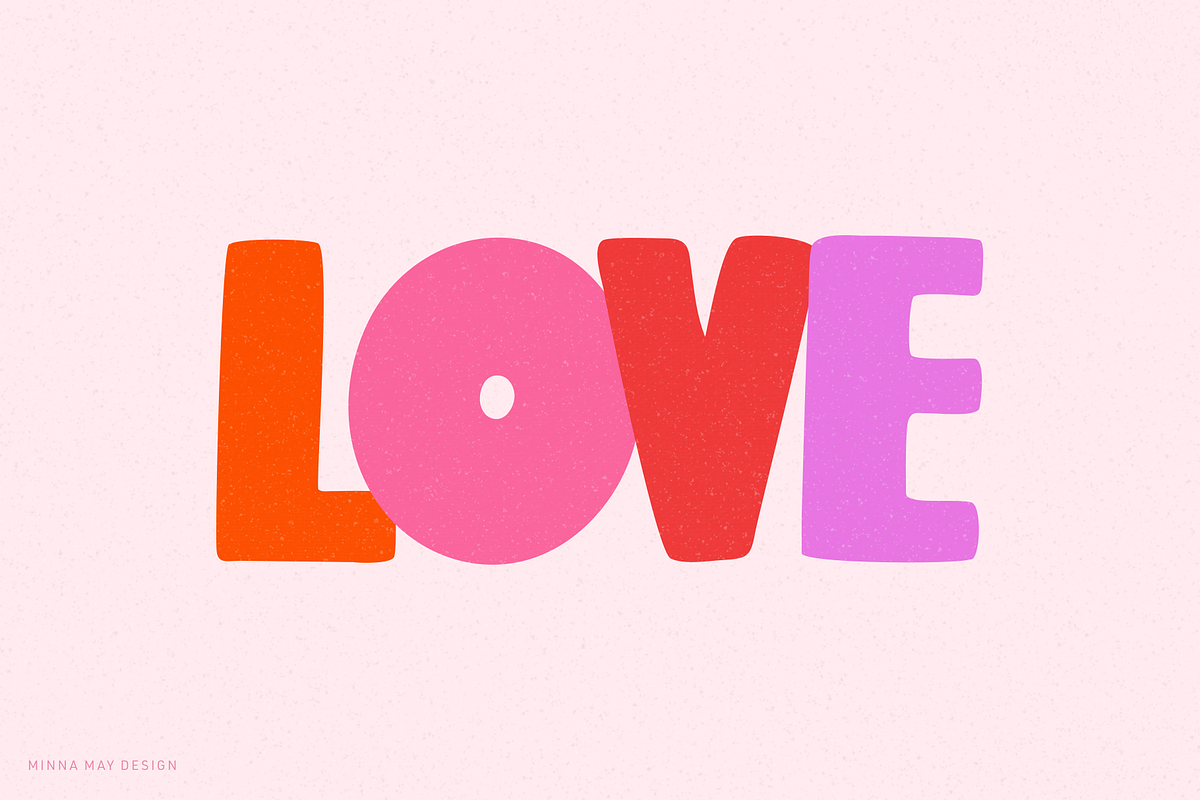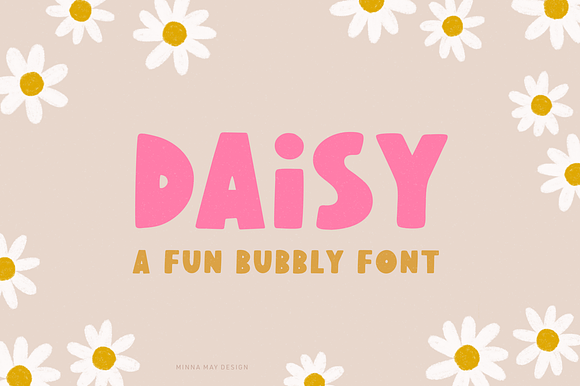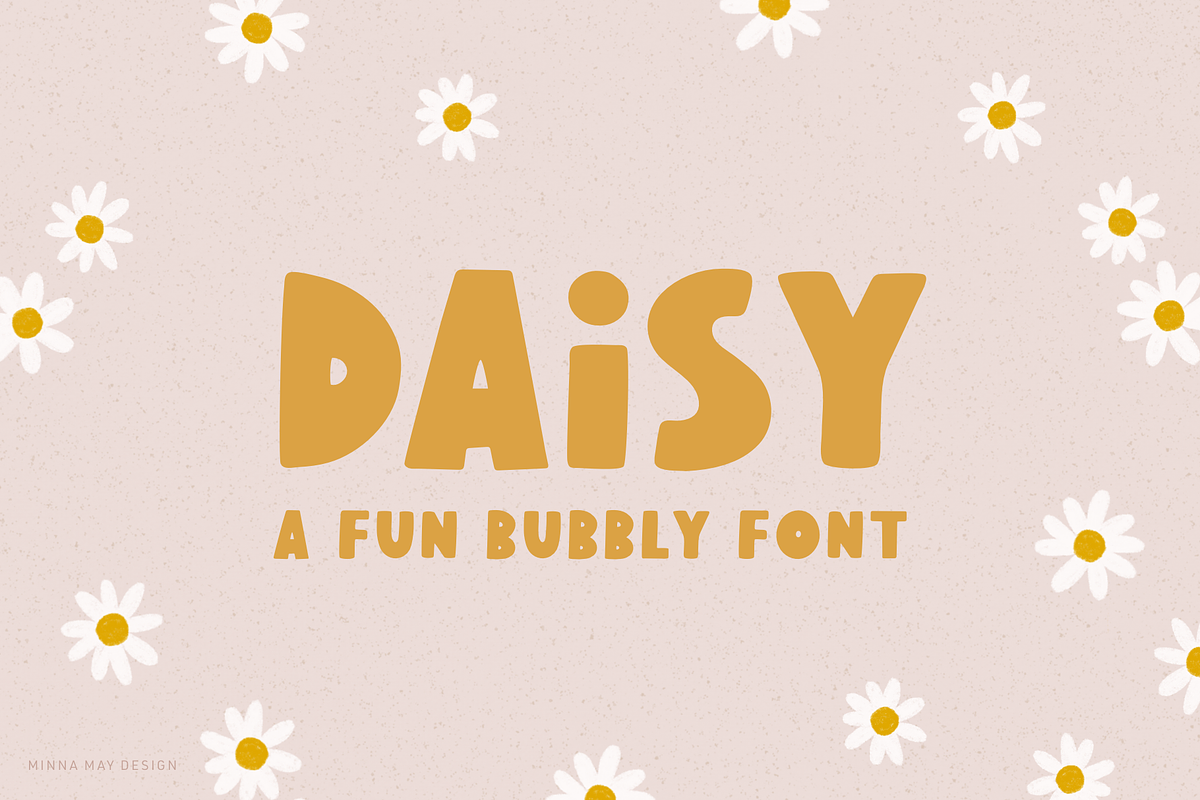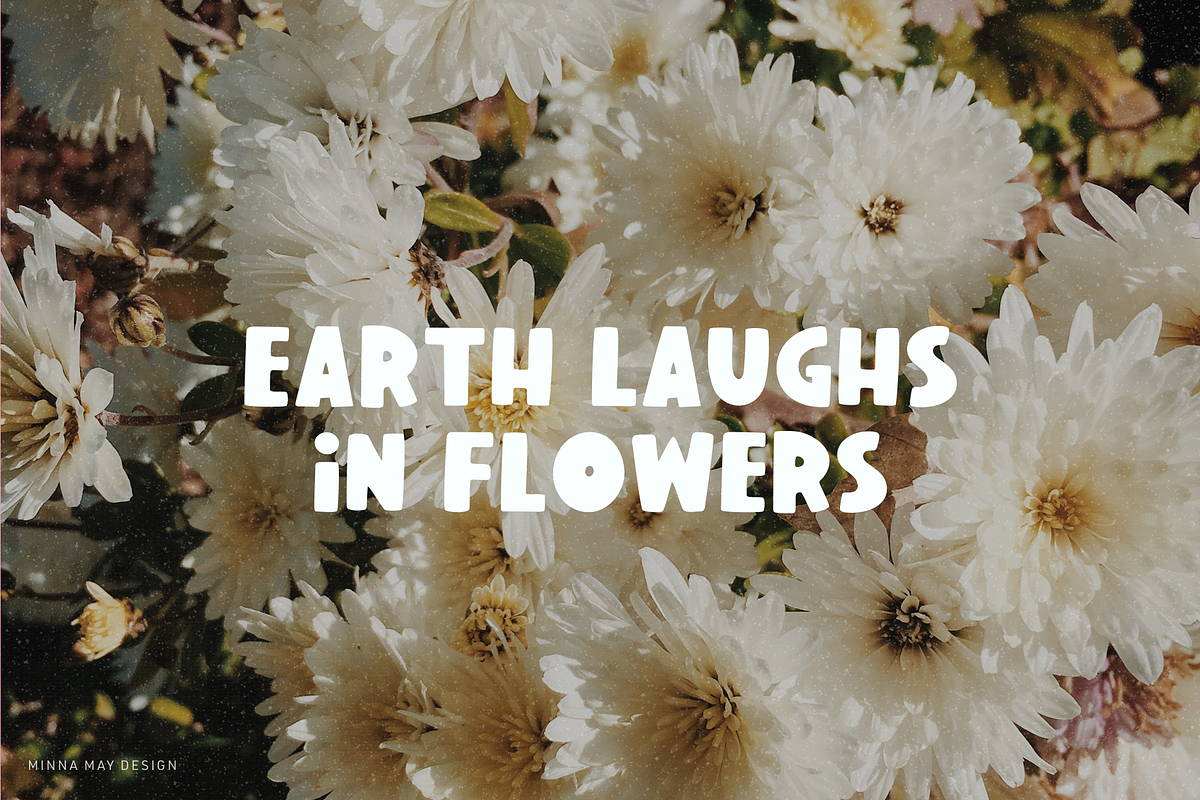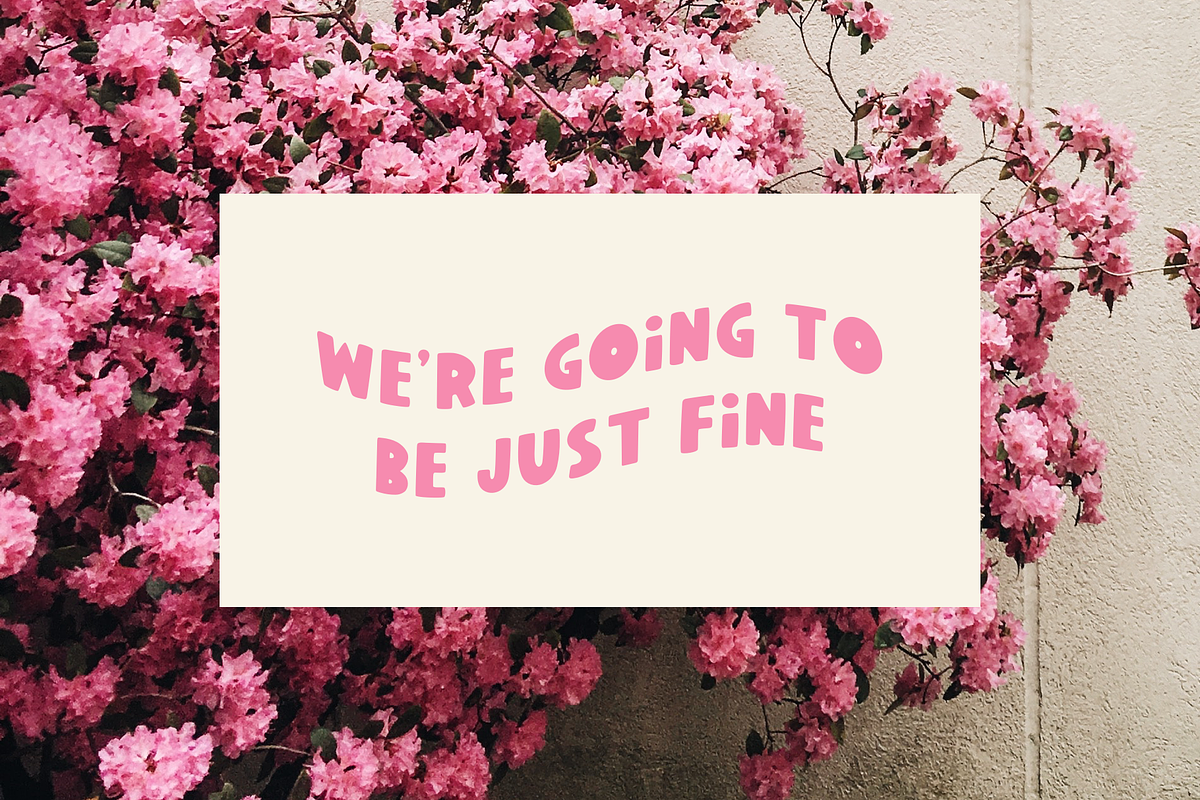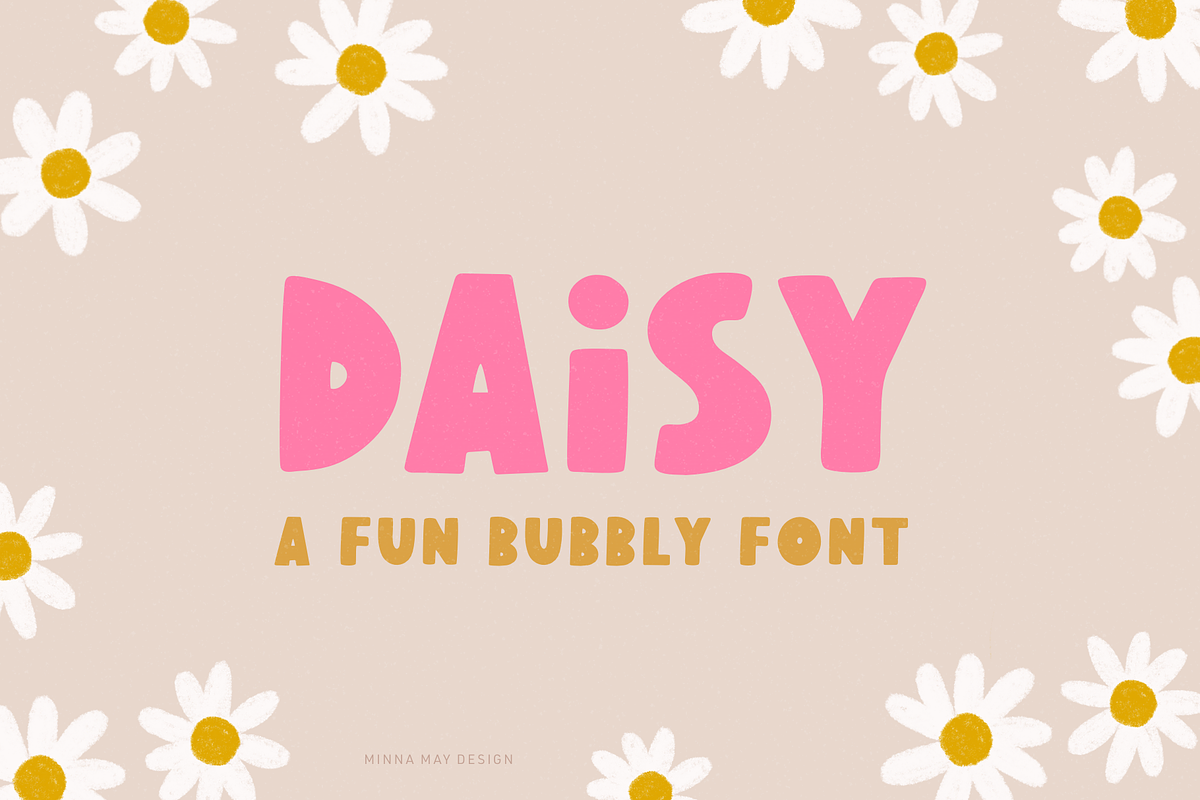
Daisy - Fun Bubbly Display Font
DAISY - a super fun and playful hand-lettered bold typeface. Use for logos, quotes, invitations, blog posts, business cards, presentations and more! This font is all caps and includes numbers and punctuation.
• Regular (uppercase only)
• Numbers & Punctuation
- This font is all caps and includes numbers and punctuation.